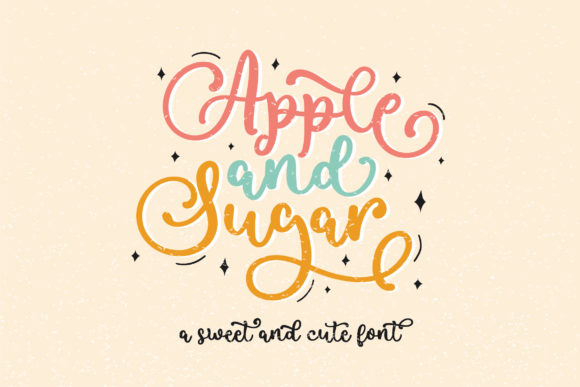
Get ready to add an enchanting touch to your creative projects with Apple and Sugar Font, an exquisite handwritten font family that will ignite your imagination. Crafted with meticulous attention to detail, this script font exudes a childlike playfulness that will captivate your audience.
From whimsical scrapbook designs to heart-melting children's books, Apple and Sugar Font seamlessly blends charm, elegance, and legibility. Its graceful curves and playful strokes add a touch of warmth and cheer to any project, making it a perfect choice for personalizing special moments.
One of the highlights of Apple and Sugar Font is its PUA encoding, which allows effortless access to a comprehensive range of glyphs and swashes. With just a few clicks, you can unlock a world of creative possibilities, unlocking embellishments, alternatives, and ligatures that will lend a unique flair to your designs.
Every letter in the Apple and Sugar Font family has been lovingly crafted to evoke a sense of joy and wonder. Its childlike innocence makes it an ideal choice for projects that aim to connect with a younger audience, such as school projects, classroom materials, and children's parties.
But don't let its playful nature fool you – Apple and Sugar Font is equally versatile in more sophisticated applications. Its elegant swashes and charming details add a touch of whimsy to wedding invitations, birth announcements, and heartfelt personal letters.
With Apple and Sugar Font, you'll have a font that truly speaks to your audience. Its heartwarming strokes and playful spirit will leave a lasting impression, whether you're creating personalized gifts, captivating social media content, or unforgettable branding materials.